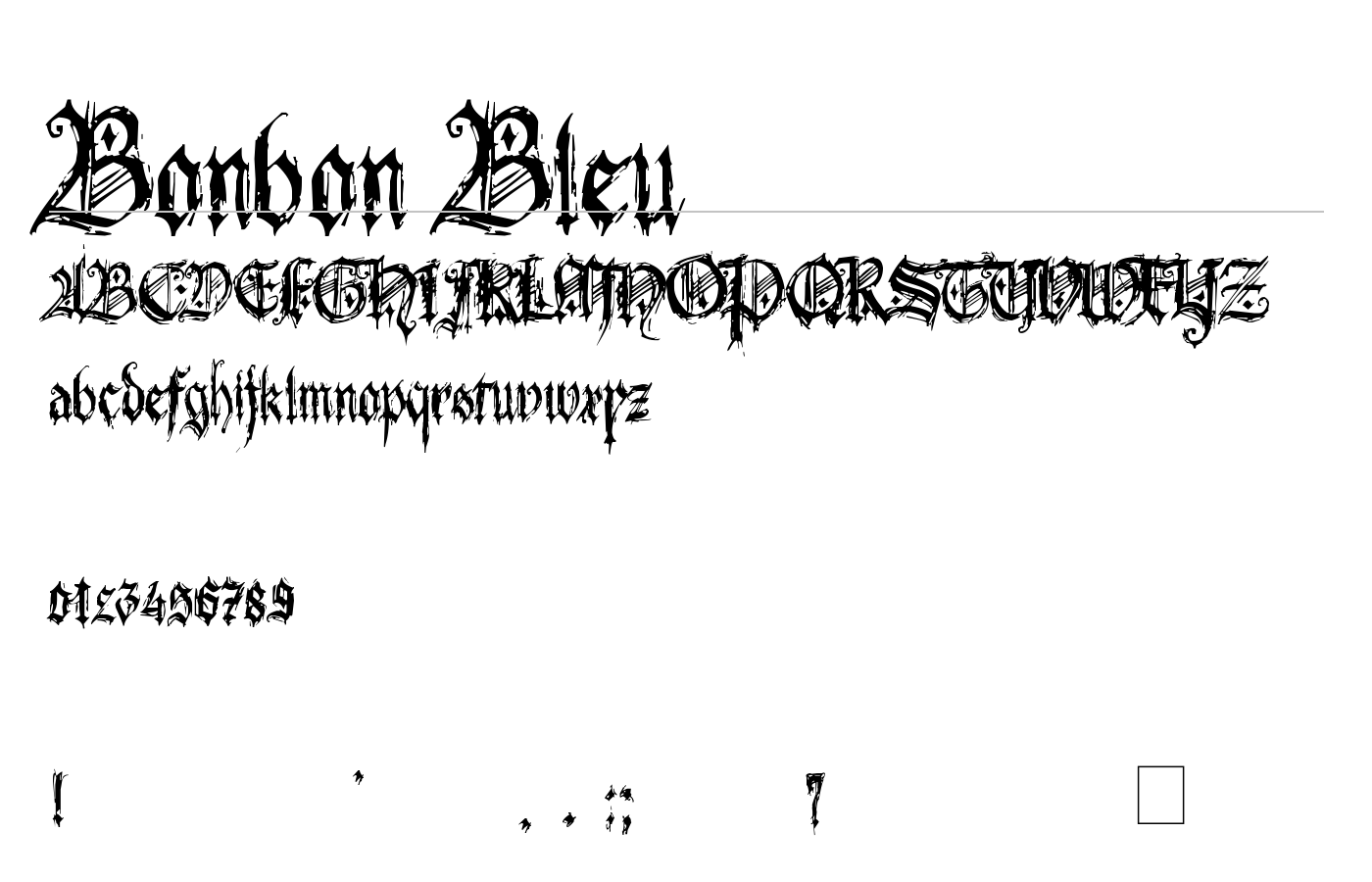
Bonbon Bleu is a highly stylized blackletter-inspired font with sharp, jagged strokes and intricate details, giving it a dark, gothic personality. Its condensed and bold letterforms make it striking and dramatic, best suited for eye-catching headlines, logos, and designs that want to convey an edgy or medieval aesthetic. This font works well in contexts that benefit from a strong, decorative, and unconventional look, such as alternative fashion branding, posters, or themed events.
Bonbon Bleu Font
About Bonbon Bleu Font